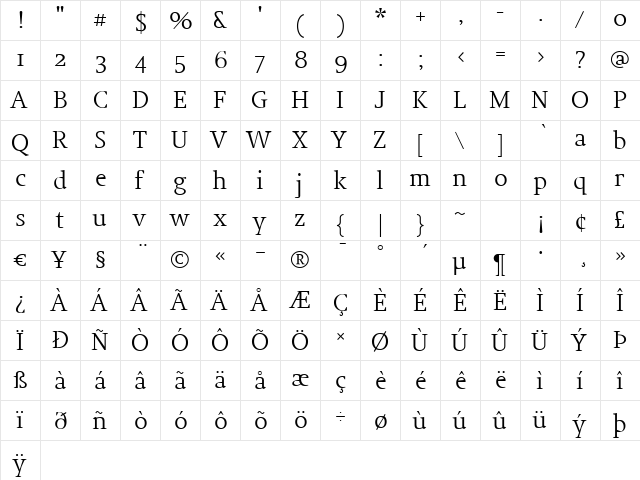
JudeLight Regular
Design Context for JudeLight Typeface
JudeLight takes a measured approach to typography — its balanced proportions and neutral character make it a reliable workhorse for both digital and print work. Its slender proportions lend an understated elegance to any composition.